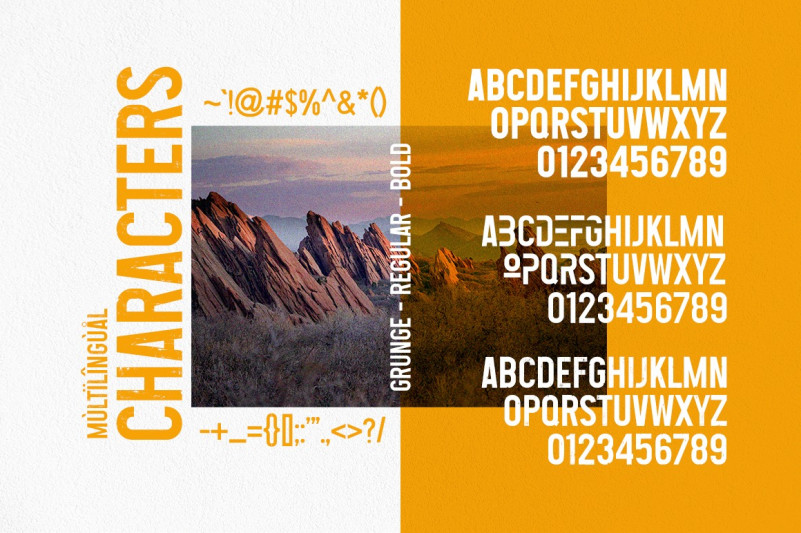
Tactico Font
Tactico Display Font
This is all caps display font that is perfect for display type and contemporary branding. Made from font designer named Salamah Studio. It will look stunning on any poster flyer or print. Use this font for your designs and explore its endless possibilities.